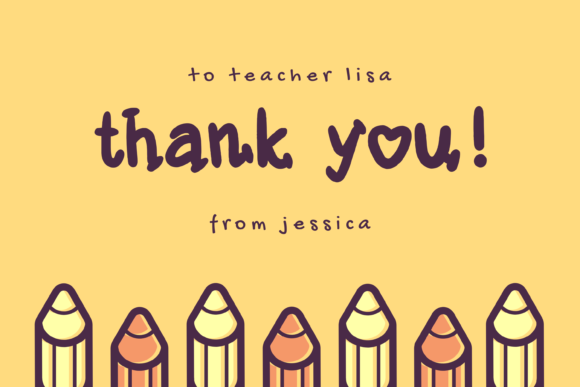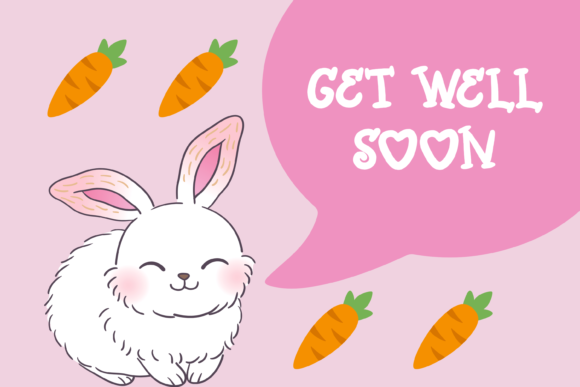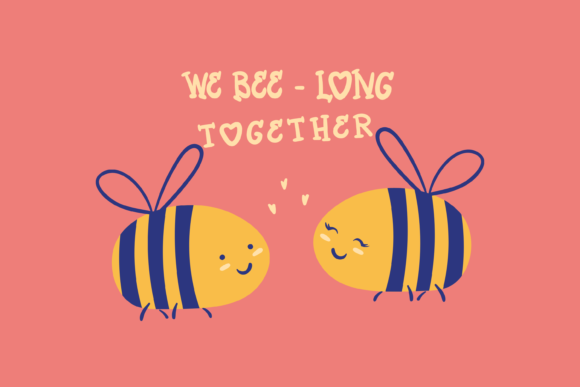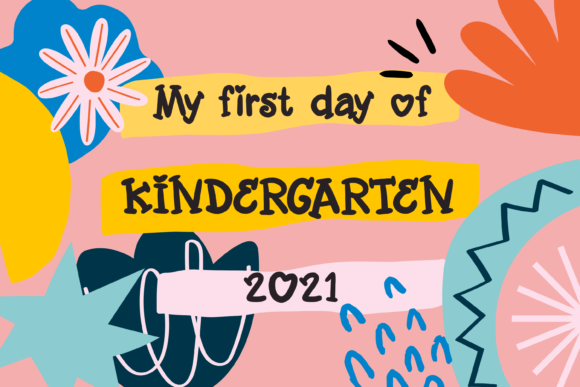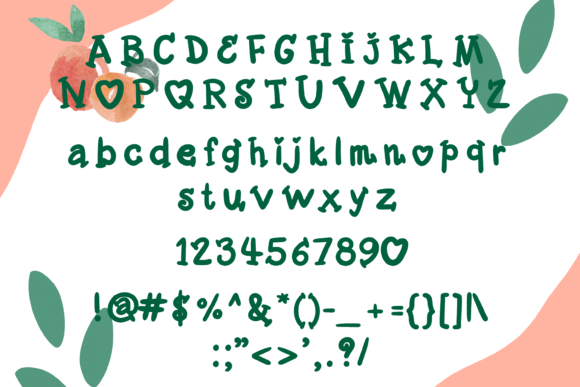
Introduction to Peach Pie Font
Peach pie is a whimsical and utterly adorable serif font that’s perfectly suitable for any crafts that require adorable typography.
Children’s projects are a hit with this playful font .
Key Features of Peach Pie Font